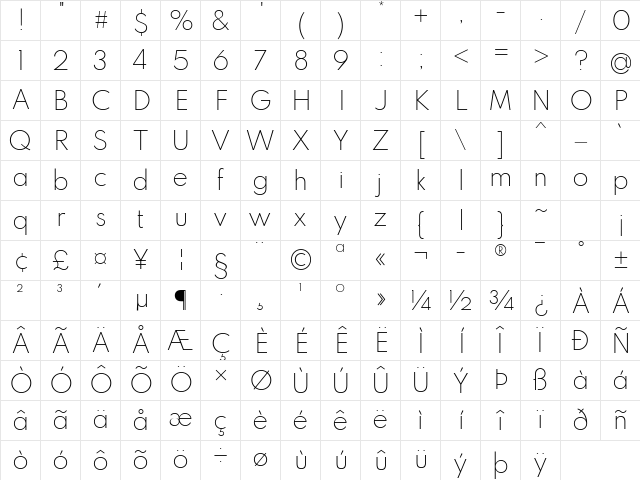
Spartan ExtraLight Regular
Foundry: Matt Bailey
Designer: Matt Bailey, Mirko Velimirovic
Design Context for Spartan ExtraLight
Spartan ExtraLight is a composed and adaptable typeface that performs quietly and consistently across a wide range of design contexts. Its slender proportions lend an understated elegance to any composition.